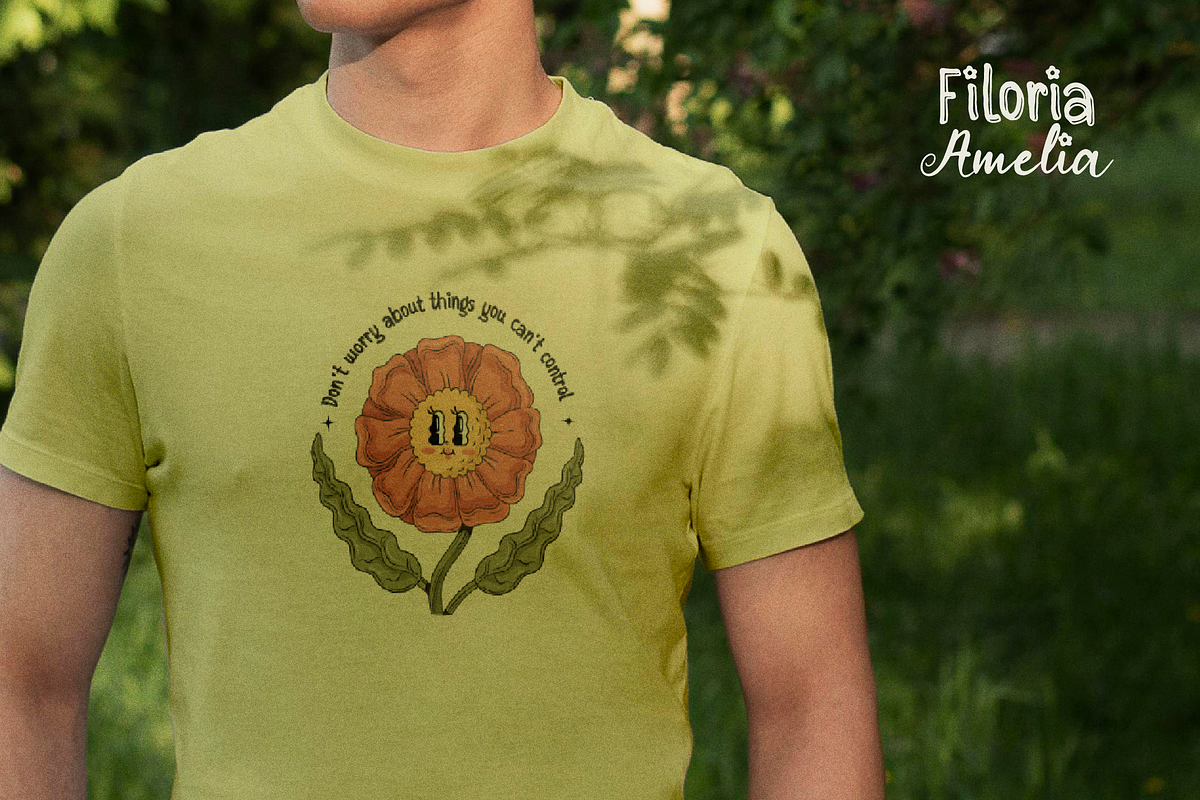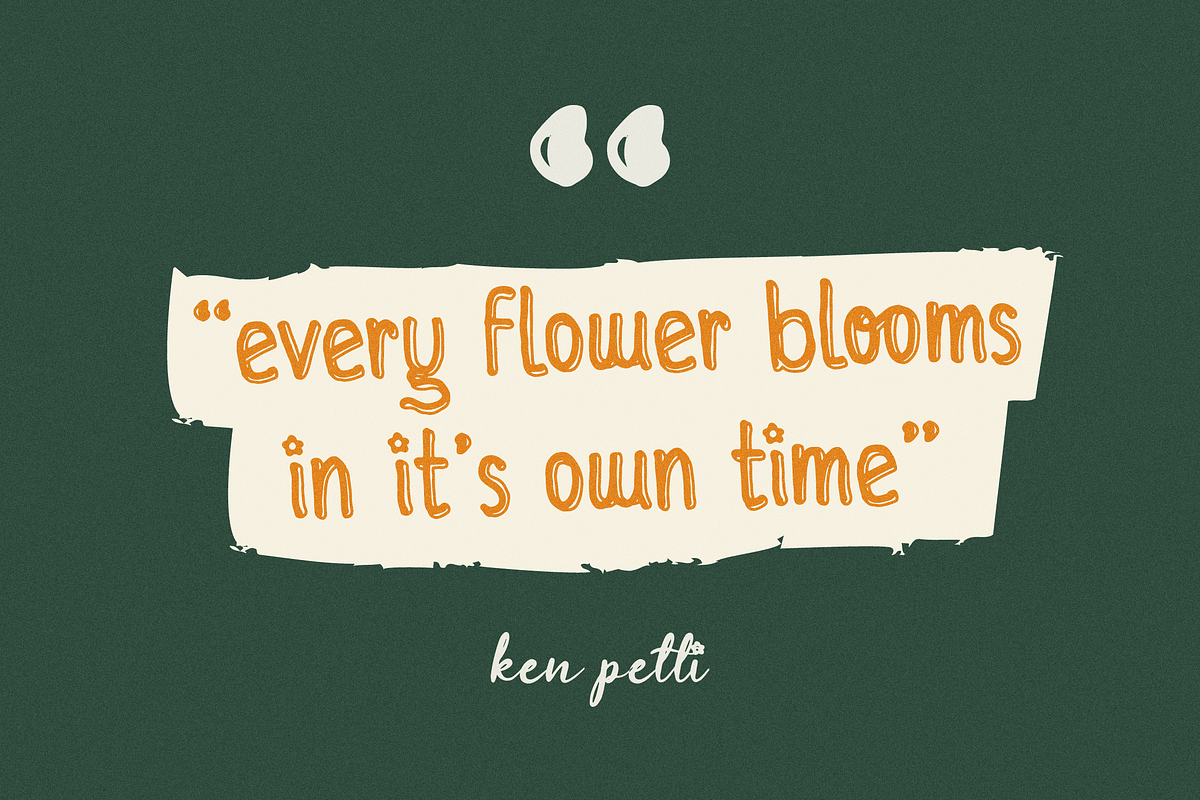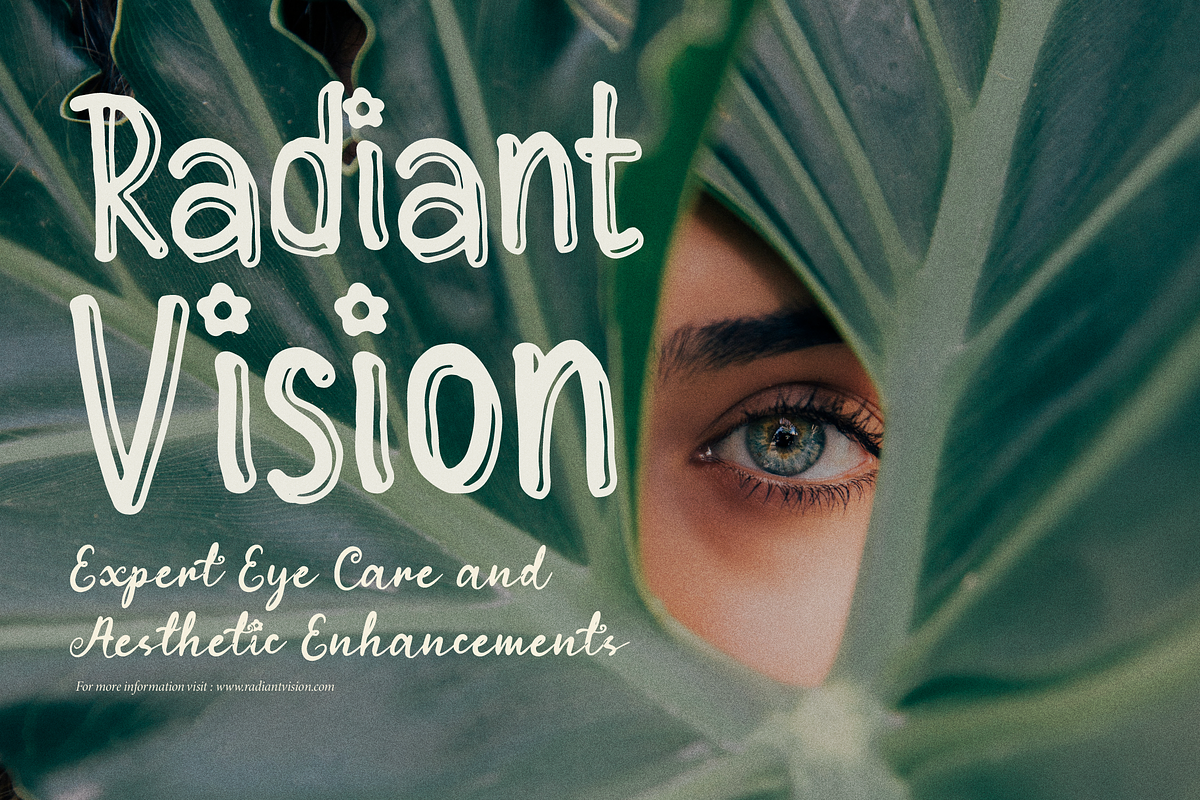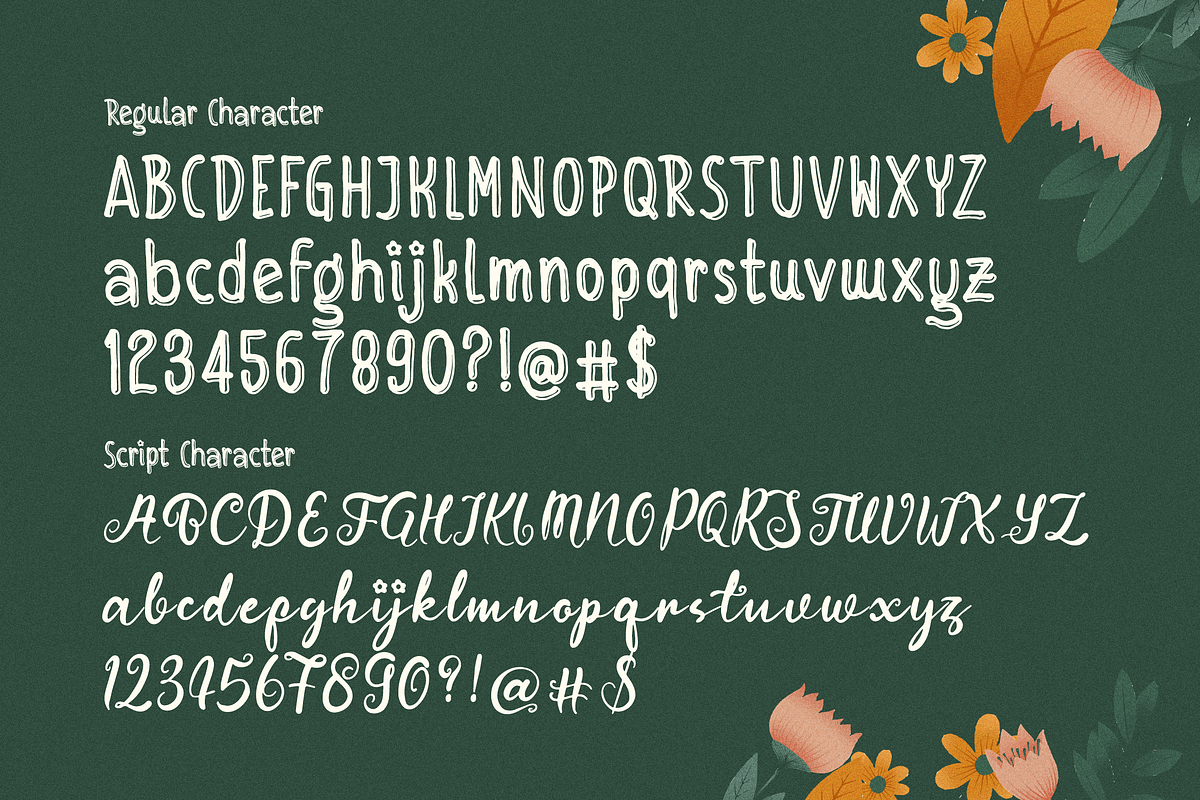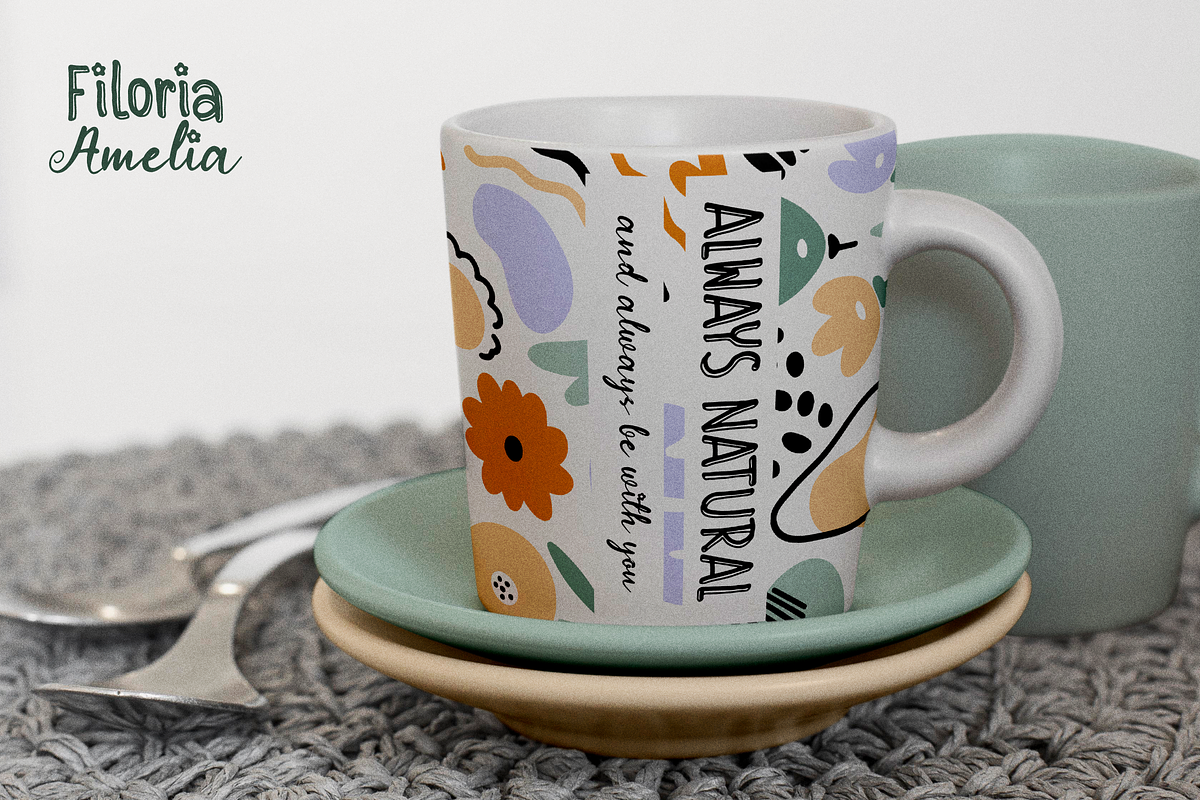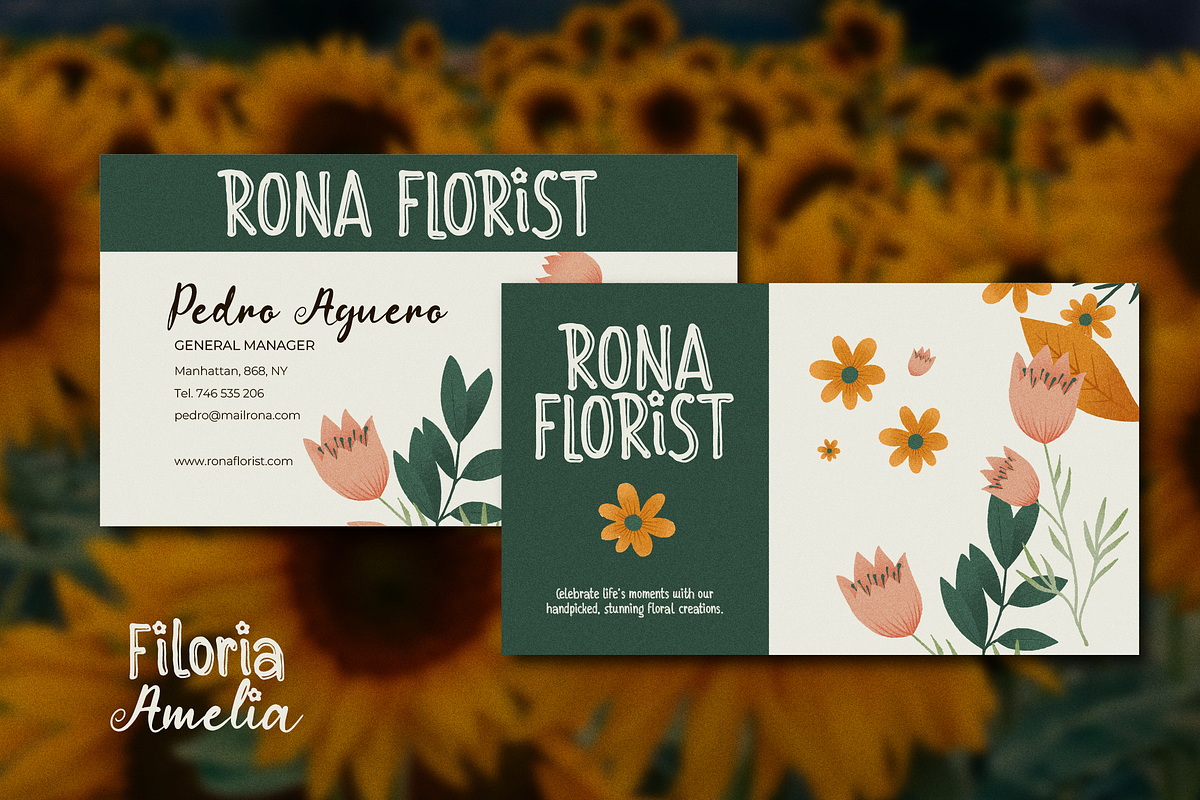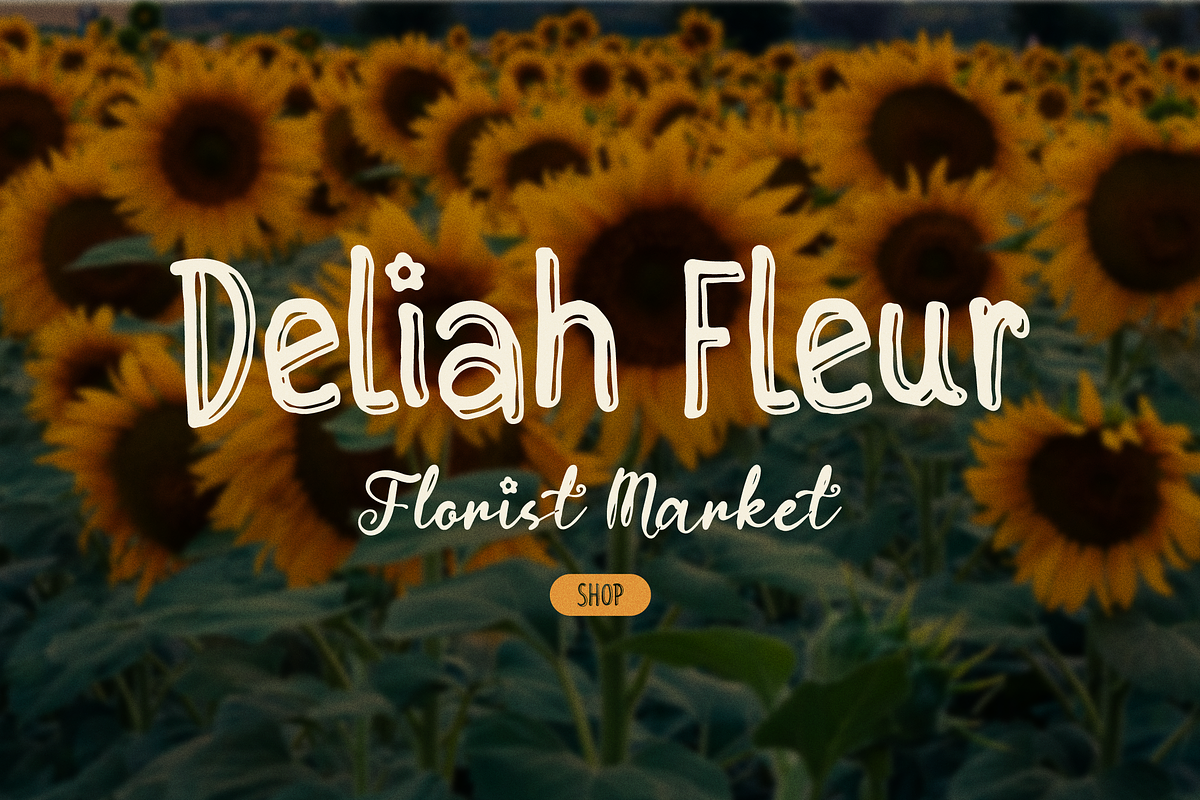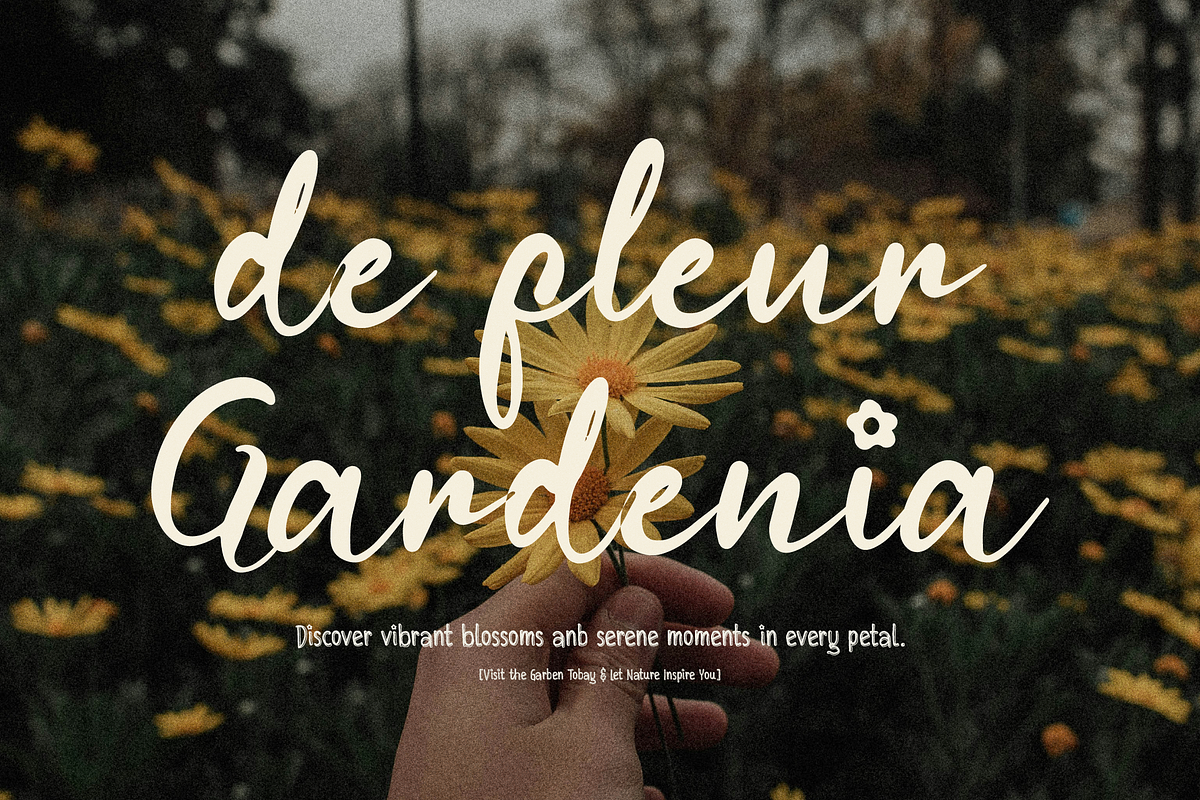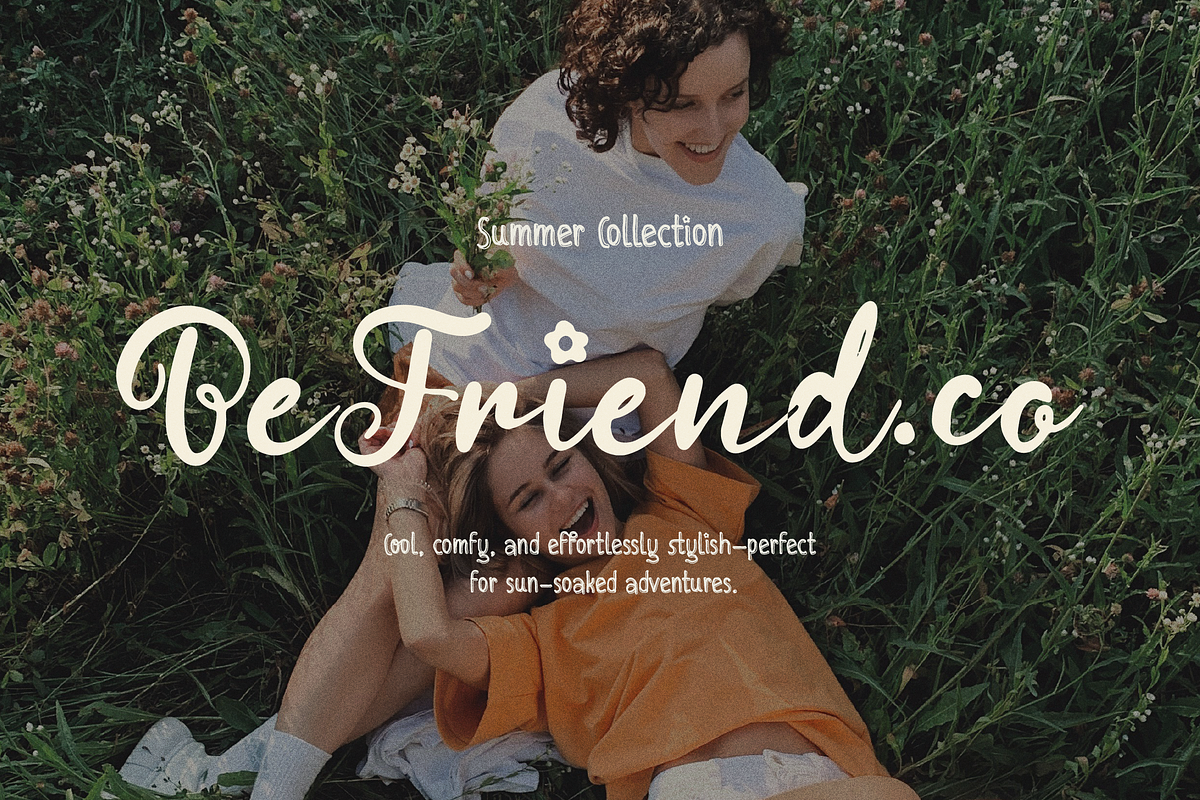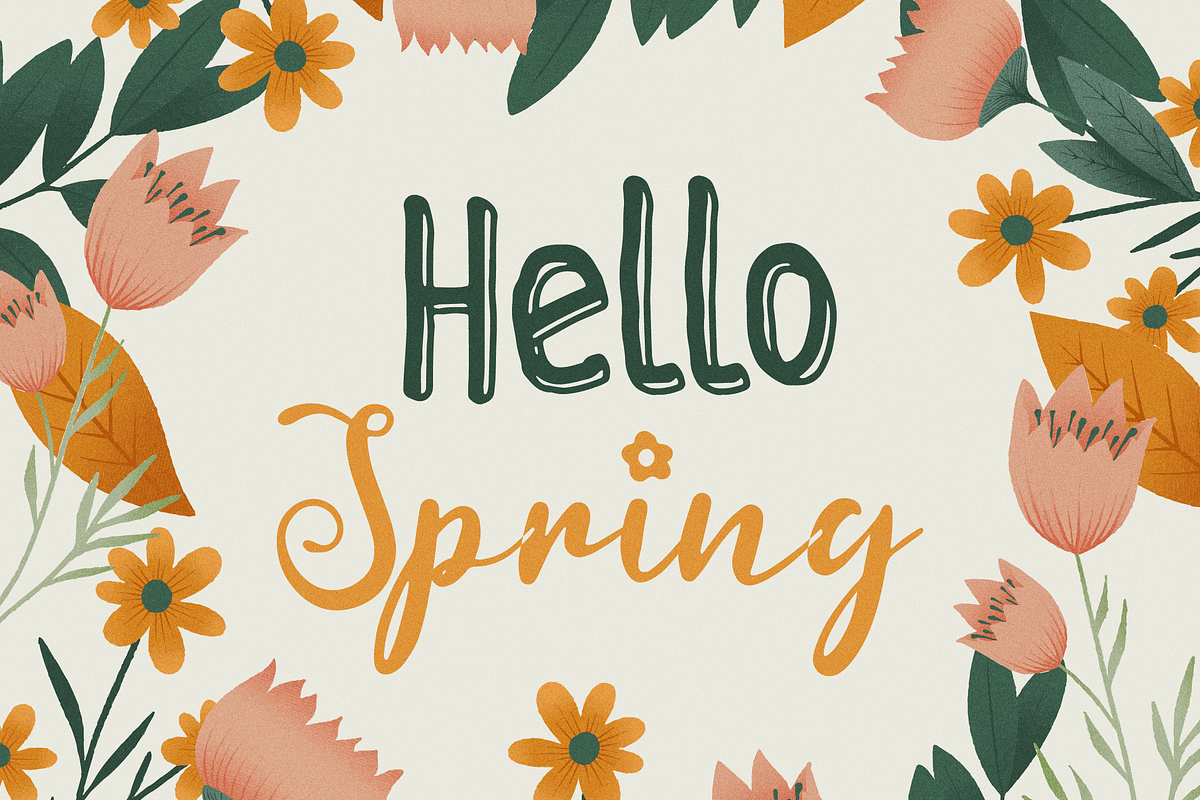
Filoria Amelia | Cute Hand Drawn Duo
Filoria Amelia | Cute Hand Drawn Duo Font, from Denustudios, suitable for any projects such as: logos, branding projects, homeware designs, product packaging, mugs, quotes, posters, shopping bags, t-shirts, book covers, name card, invitation cards, greeting cards, label, photography, watermark, special events, and all your other lovely projects that need a Cute Hand Drawn Duo Font taste.